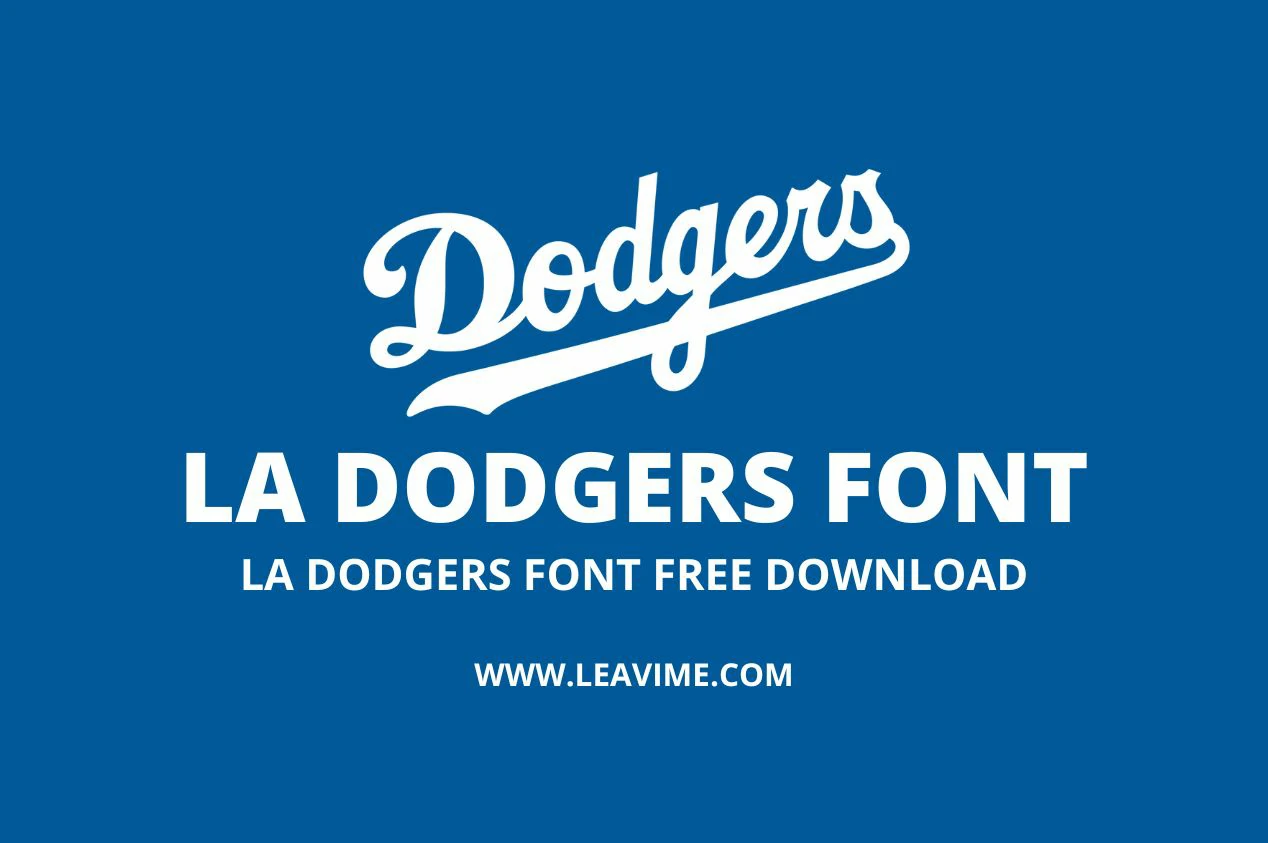
The LA Dodgers font is synonymous with one of Major League Baseball’s most iconic teams, the Los Angeles Dodgers. Known for its rich history and legendary players, the franchise is equally celebrated for its distinctive logo and custom font. The LA Dodgers font is a unique creation, not officially available for download. However, fonts like Catchland closely mimic its slanted, italicized style. The iconic fusion of the ‘L’ and ‘A’ in the logo symbolizes the team’s deep connection to Los Angeles, making it a globally recognized emblem.
Originally founded in 1883 in Brooklyn, the team moved to Los Angeles in 1958. While their early uniforms lacked the script logo, the Dodgers began incorporating artistic fonts in the 1930s, inspired by the art deco movement. The team’s first script-style logo debuted in 1952, designed by Otis Shepard, a renowned sports artist and graphic designer. Shepard aimed to infuse the script with movement and dynamism, creating a bold, readable design that became integral to the team’s branding.
The Dodgers’ logo font has remained largely unchanged over the years, maintaining its clean, timeless appeal. The current logo features a custom script typeface, meticulously crafted to reflect the team’s spirit and its connection to Los Angeles. The modern, sleek design emphasizes smooth curves and sharp edges, giving it a sporty yet elegant look.